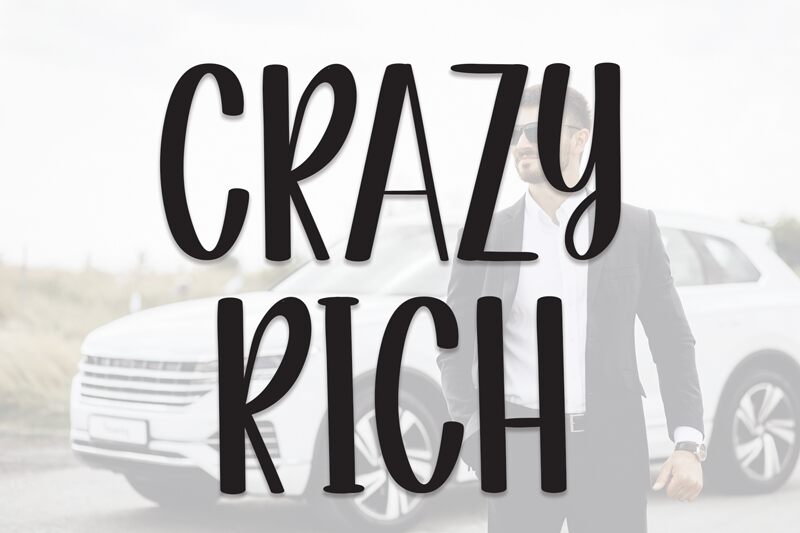
Crazy Rich
Crazy Rich, designed by Scratchones, offers a playful and distinct touch to the script font family. Its semi-light weight paired with a condensed width brings forth an elegant yet approachable vibe. The school style of Crazy Rich evokes a sense of nostalgia, reminiscent of handwritten notes and classroom blackboards.
The aesthetic charm of this font lies in its balanced mix of casual flair with a structured rhythm, making it highly versatile for various creative projects. Whether it's for branding, invitations, or editorial design, Crazy Rich adds personality without overwhelming the content.
With its unique character and stylish appeal, Crazy Rich stands out as an attractive choice for designers aiming to infuse their work with warmth and individuality.